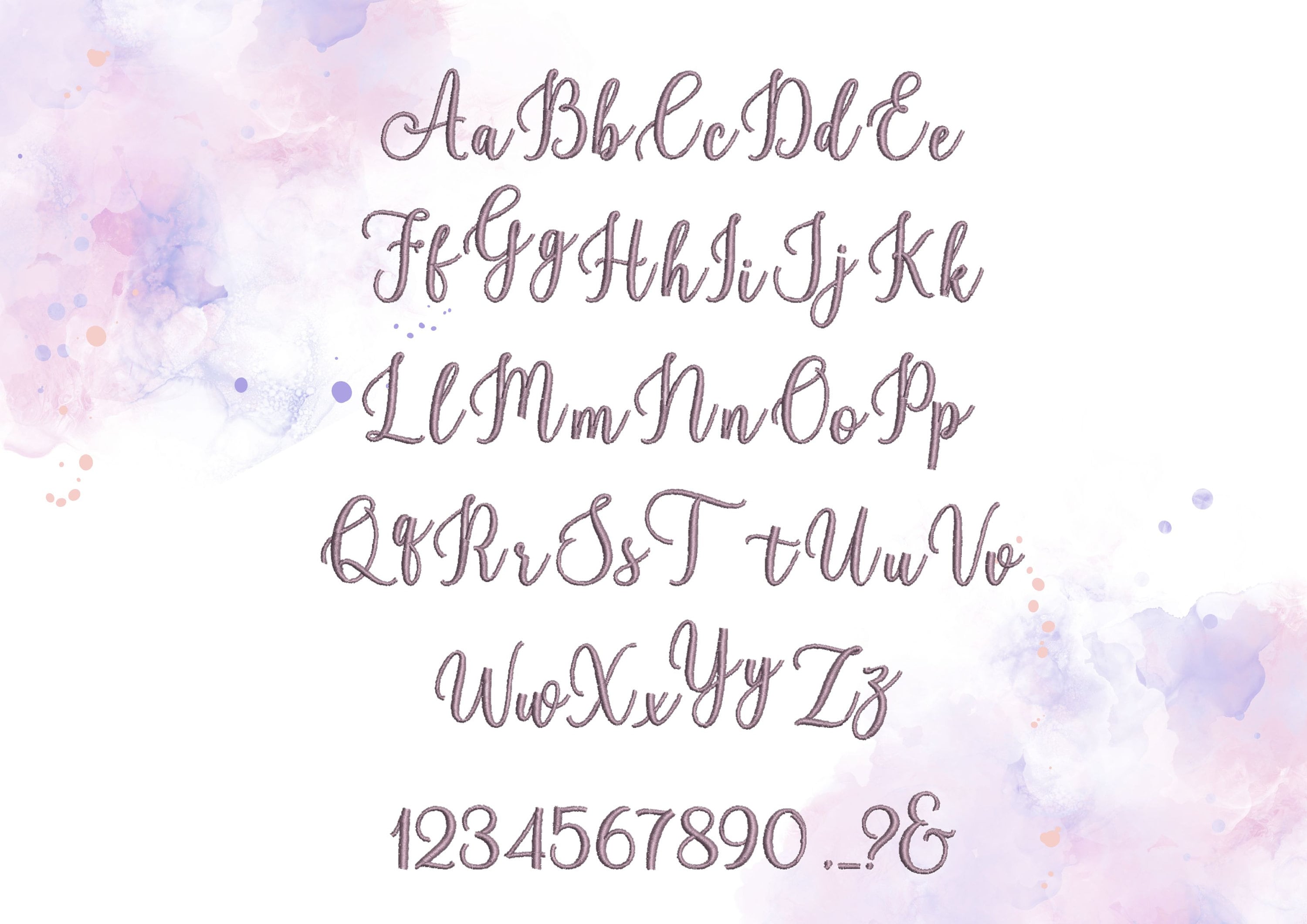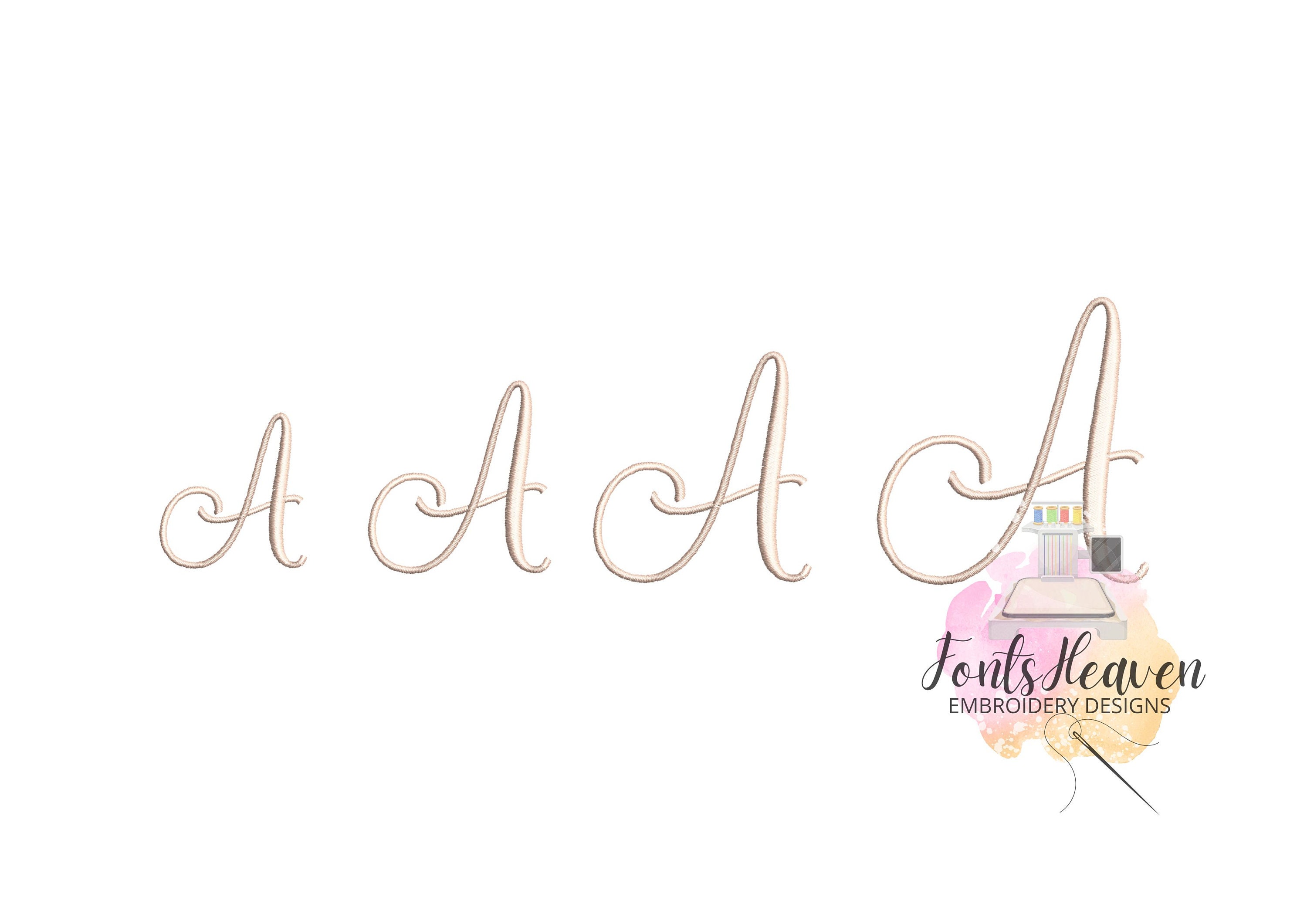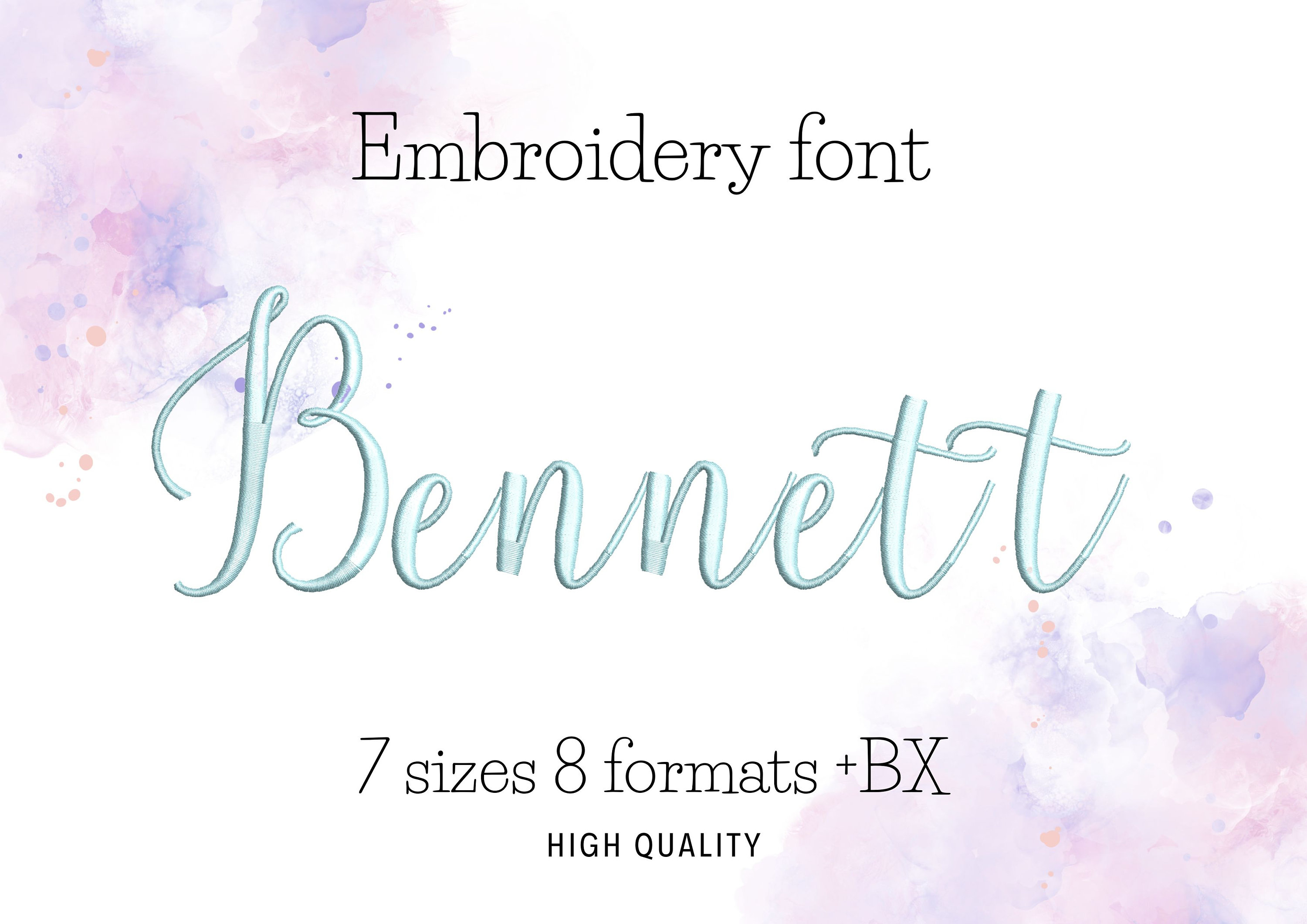
Modern script handwritten cursive Font alphabet letters machine embroidery designs 1.2" thru 5.5" inches, kids name monogram personalize, BX
Uppercase and lowercase letters, numbers, punctuation